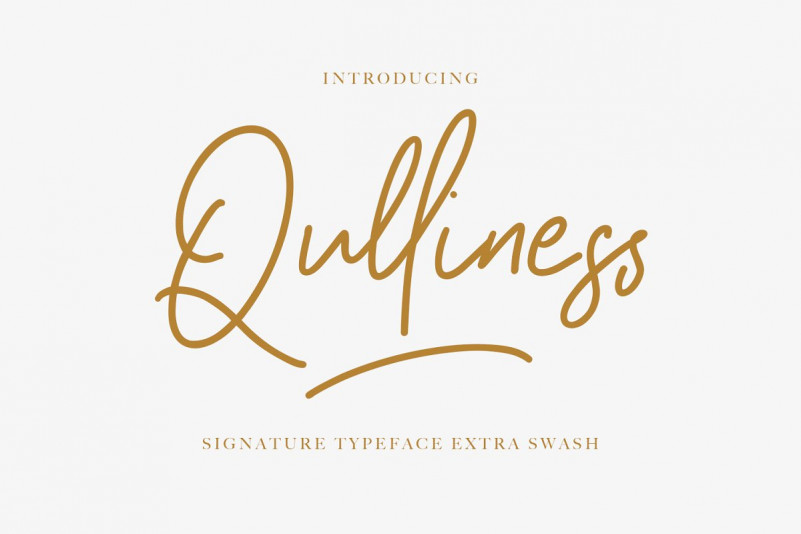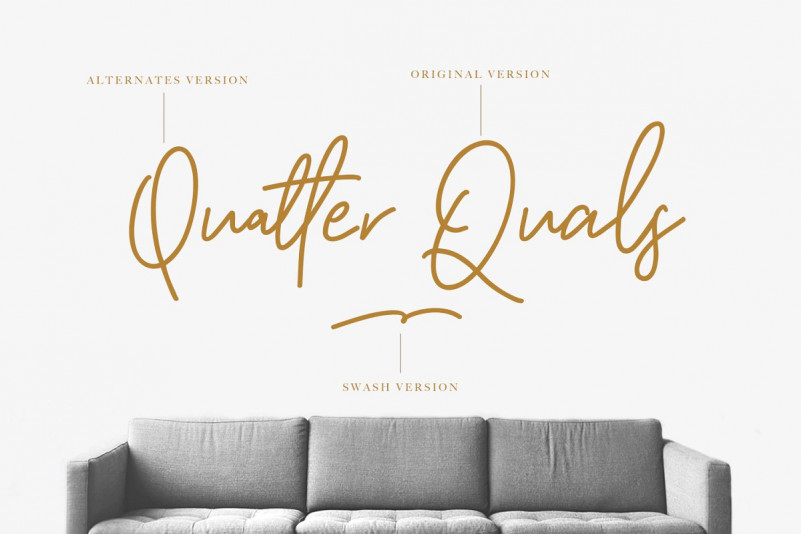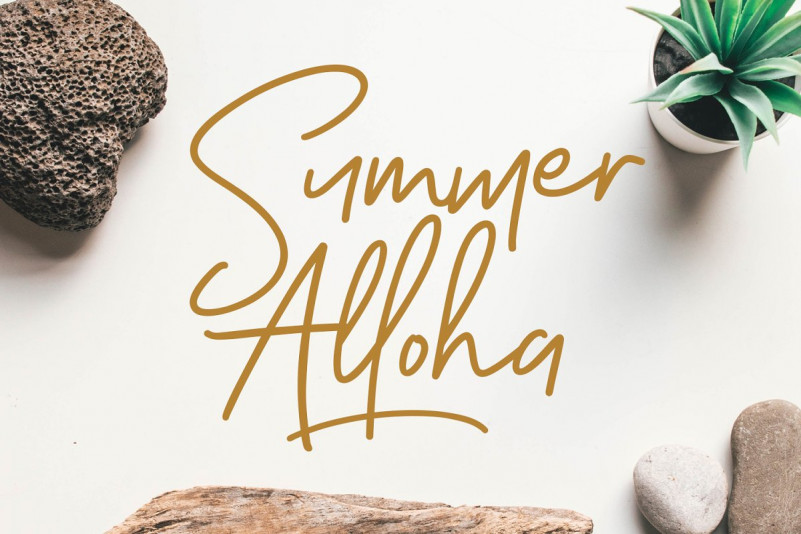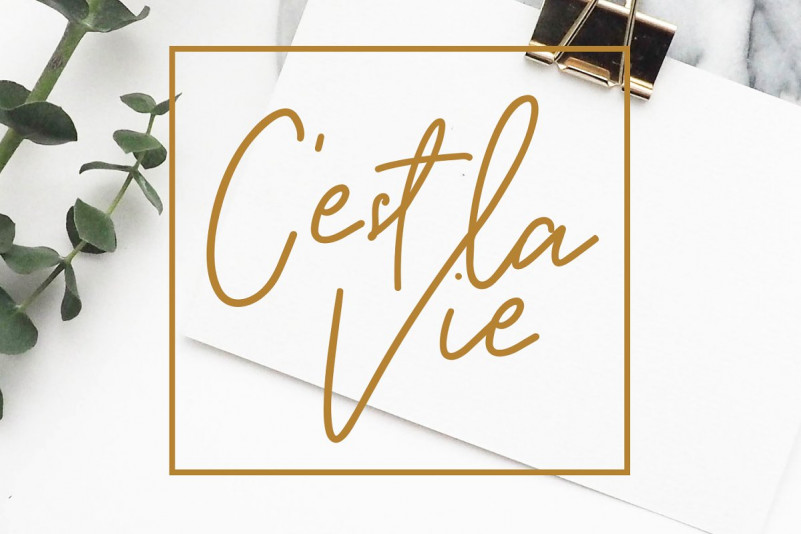
Qulliness Signature Font
Give your designs an authentic handcrafted feel.”Qulliness Signature Font” is perfectly suited to signature, stationery, logo, typography quotes, magazine or book cover, website header, clothing, branding, packaging design and more.